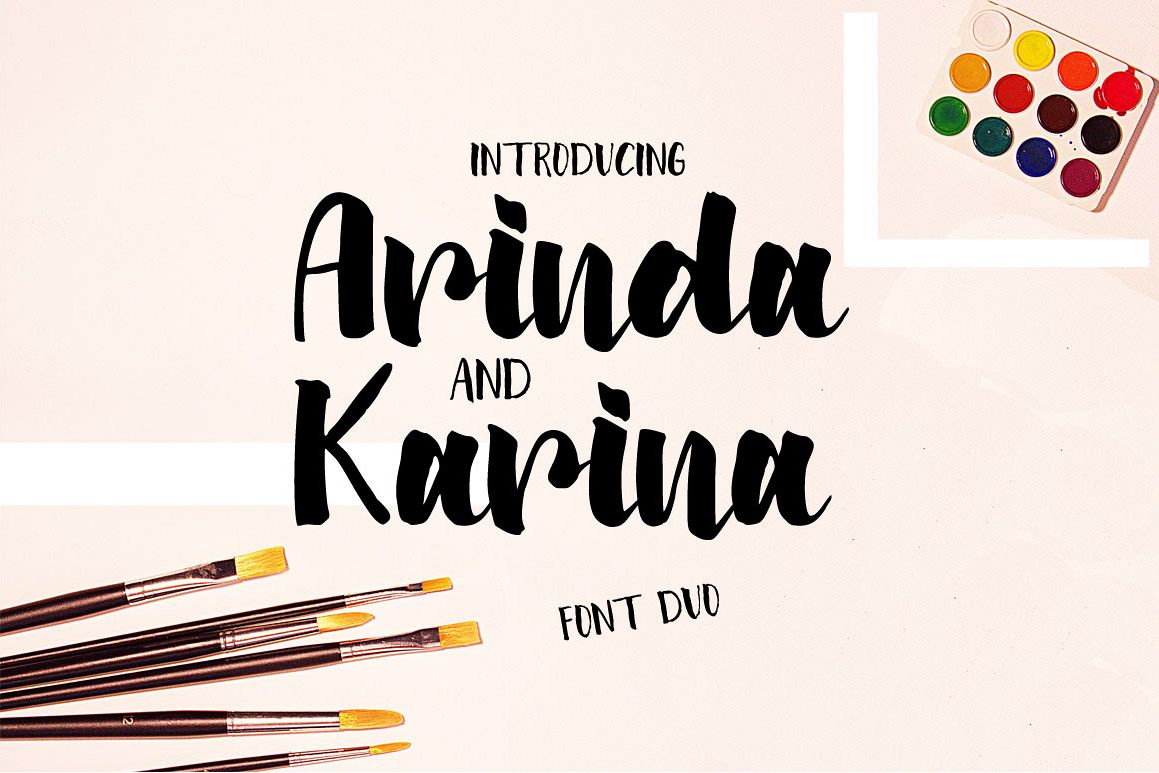
Arinda and Karina | Font Duo
Introduce, this is our latest product, we name it
This product is Arinda and Karina | Font Duo.
Arinda is modern brush script with a handmade brush style, skecthing with love and tracing carefully to give best result,
Karina is handmade All caps font, it's perfect to pairing with arinda,
It’s beautiful on invitations, greeting cards, branding materials, business cards, quotes, posters, and more!